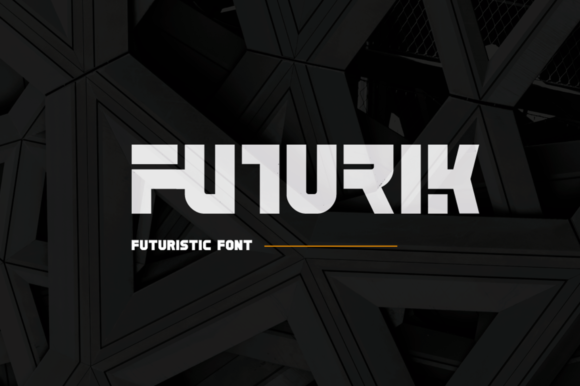
The Power of a Perfect Font: Introducing Futurik
You know that moment when everything comes together – the idea, the design, the words – and it just feels right? That’s the magic of good design. And, let’s be honest, it all starts with the right font. Whether you’re a seasoned pro or just starting out, having the perfect font in your arsenal can make all the difference. That’s why we’re excited to introduce you to the Futurik Font, a bold and thick lettered display font that’s sure to elevate your creations.
With its unique style and versatility, the Futurik Font is the perfect addition to any designer’s library. Whether you’re working on a project that needs a statement piece or just want to add some extra flair, this font is sure to deliver. Its bold lines and thick strokes make it perfect for headlines, titles, and any other element that needs to stand out. And, with its ease of use and wide range of applications, the Futurik Font is an invaluable asset for designers of all levels.
- Unique Characteristics: Geometric sans-serif design with a futuristic feel, featuring sharp lines, bold shapes, and a dynamic aesthetic
Futurik Font Review
I’ve had the chance to play around with the Futurik font, and I must say it’s a unique and interesting addition to any design project.
- The Futurik font’s futuristic aesthetic is sure to grab attention and create a memorable impression.
- Its bold and geometric lines make it perfect for use in futuristic or sci-fi themed projects.
- The font is highly customizable, allowing designers to adjust the weight, width, and even the spacing between characters.
- The Futurik font may not be the best choice for projects that require a more subtle or understated aesthetic.
- The font’s geometric lines can sometimes make it difficult to read, especially at smaller font sizes.
- The Futurik font may not be suitable for use in body text, as it’s better suited for use in headings or titles.
Overall, I think the Futurik font is a great choice for designers looking to add some futuristic flair to their projects. While it may have some limitations, its unique aesthetic and high customizability make it a valuable addition to any design toolkit.
Tips for Getting the Most Out of Futurik Font
1. Pair Futurik with a clean sans-serif font for contrast.
2. Experiment with different font sizes and colors to achieve the desired effect.
3. Use Futurik for headings and titles to add a touch of futurism to your design.
Futurik font is perfect for:
- Sci-fi and futuristic designs
- Technology and innovation-related projects
- High-tech branding and marketing materials
Alternatives to Futurik Font
1. Arial Rounded
Arial Rounded is a sans-serif font with rounded edges, giving it a softer look compared to Futurik Font. It is suitable for use in digital media, print, and signage where a friendly and approachable feel is desired. Arial Rounded is a more rounded and less geometric font compared to Futurik Font.
2. Helvetica Rounded
Helvetica Rounded is a sans-serif font with rounded corners, providing a clean and modern look. It is ideal for use in corporate branding, advertising, and editorial content where a balanced and sophisticated feel is required. Helvetica Rounded has a more refined and elegant look compared to Futurik Font.
3. Open Sans Rounded
Open Sans Rounded is a sans-serif font with rounded edges, offering a clean and modern look. It is suitable for use in digital media, web design, and mobile apps where a clear and readable font is desired. Open Sans Rounded is more modern and clean compared to Futurik Font, but lacks the geometric feel.
Lato is a sans-serif font with a clean and modern design, providing a geometric feel similar to Futurik Font. It is ideal for use in digital media, web design, and print where a clean and sophisticated feel is required. Lato has a more elegant and refined look compared to Futurik Font, but lacks the rounded edges.